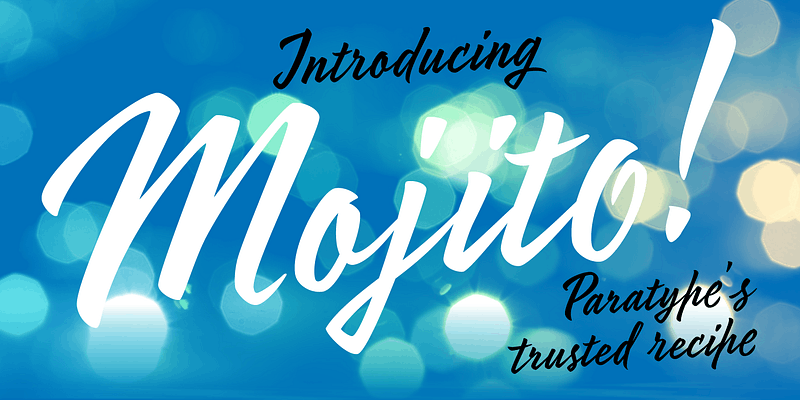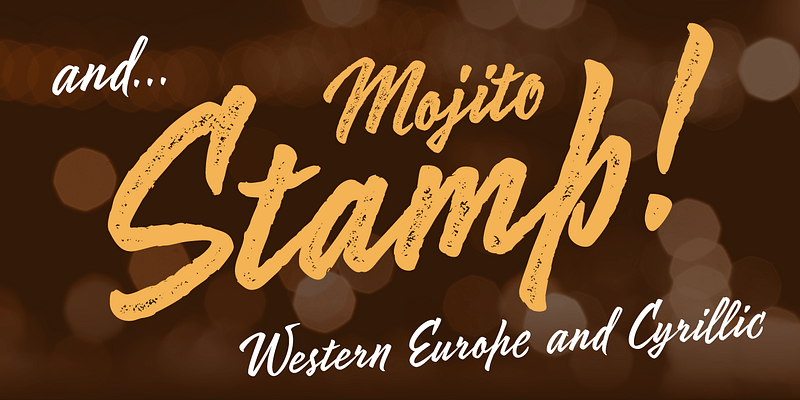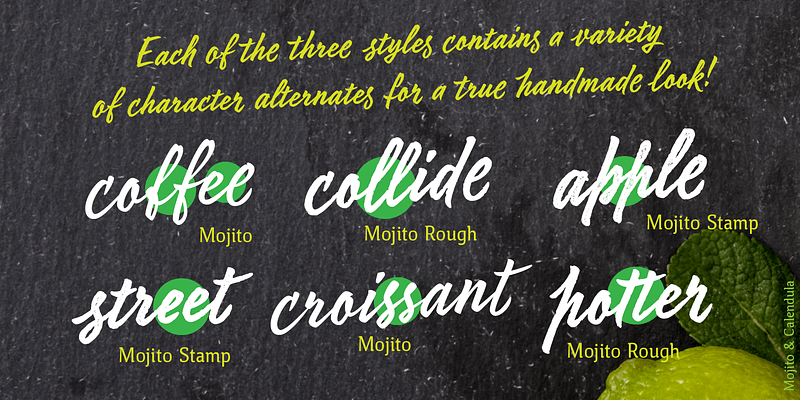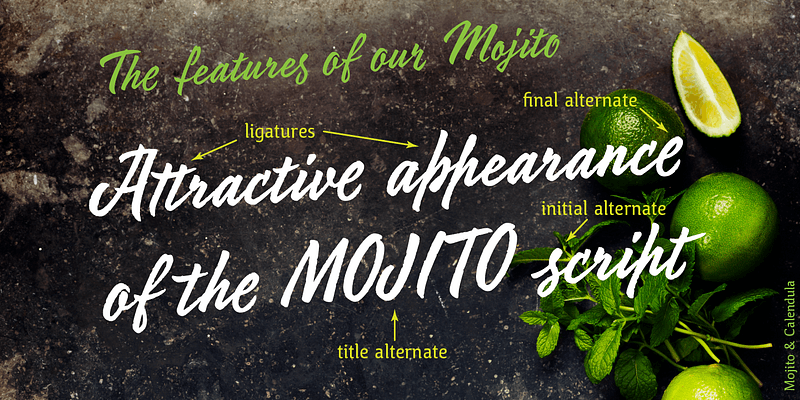
Mojito is a lively and vigorous calligraphic font based on a brush pen calligraphy. The author carefully rethought all of the character forms and created a very concise and clean outline that would look great in any size. Mojito has about 1,400 characters, including alternatives, ligatures, initial and final forms. That’s why letters are not repeated and their combinations look as natural as possible, especially in Cyrillic. For an all caps set in Mojito you can include the replacement of basic forms with the simplified ones, specifically designed for this purpose. Two additional styles imitate writing over a rough surface and a relief print. Mojito is perfect for packaging and advertising, food and beverages, cafes and restaurants, craftsmanship, children’s books, magazines, etc. The font was designed by Zahar Yaschin and released by Paratype in 2017. Additional styles were created by Alexander Lubovenko.